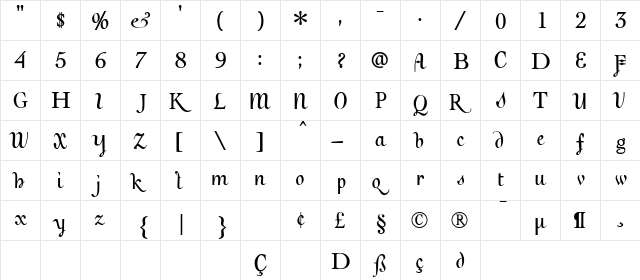
Julia Book Font Preview
Julia Book
Julia Book Font Details
Design Context for Julia Typeface
Julia takes a measured approach to typography — its balanced proportions and neutral character make it a reliable workhorse for both digital and print work.